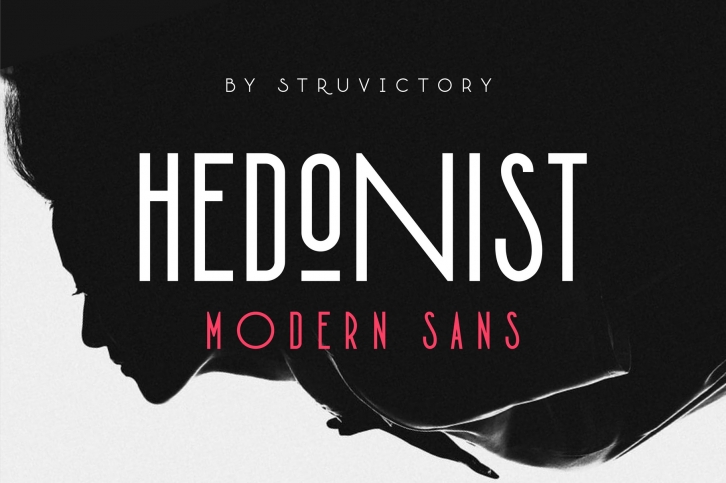
HEDONIST - Modern Sans Serif FONT Download
HEDONIST - Modern Sans Serif Font Download
HEDONIST is a great font that was designed by Struvictory.art. Imagine the amount of combinations you can create using this font! The archive is 17.68 MB and it was released on January 15, 2020. HEDONIST looks beautiful on wedding invitations, greeting cards, logos, posters, labels, t-shirt designs, logos, business cards and is perfect for use in ink or watercolor works, fashion, magazines, packaging and food menus, children's books and more!